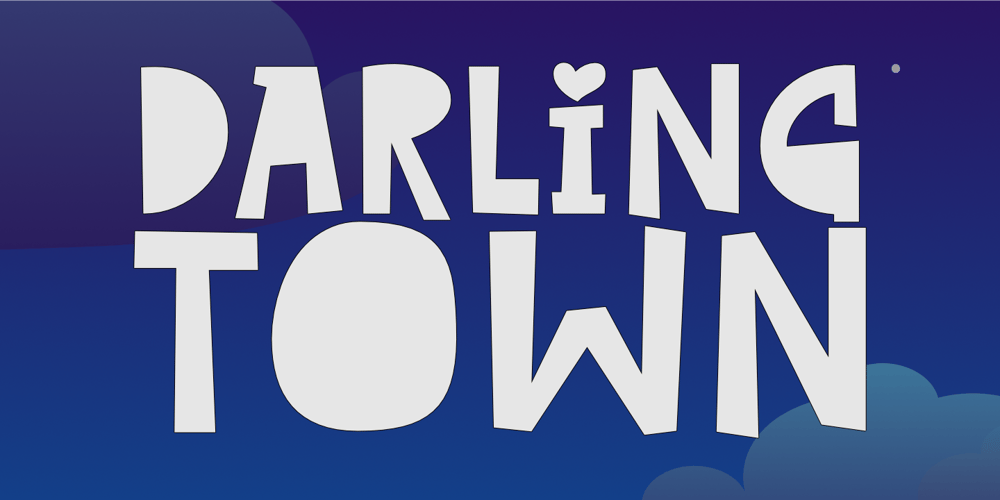
Darling Town
Darling Town font
Darling Town Font Family was designed by Aldy Sidik and published by Epiclinez. Darling Town contains 1 styles and family package options. Introducing Darling Town, a cut-out font that can make your headlines, product packaging, logos, and children’s books come alive! Imagine the possibilities as this quirky yet charming typeface adds a touch of playfulness to your designs. With its unique and eye-catching shapes, Darling Town will instantly capture attention and leave a lasting impression on your audience.Thank You